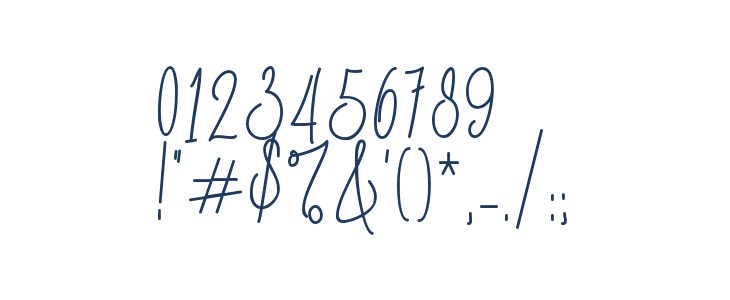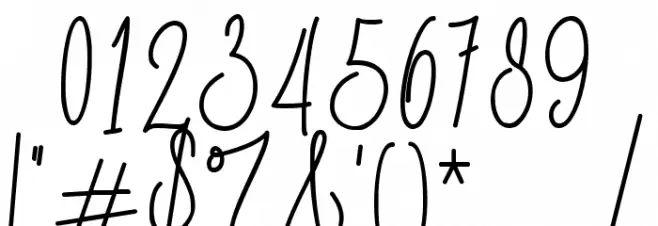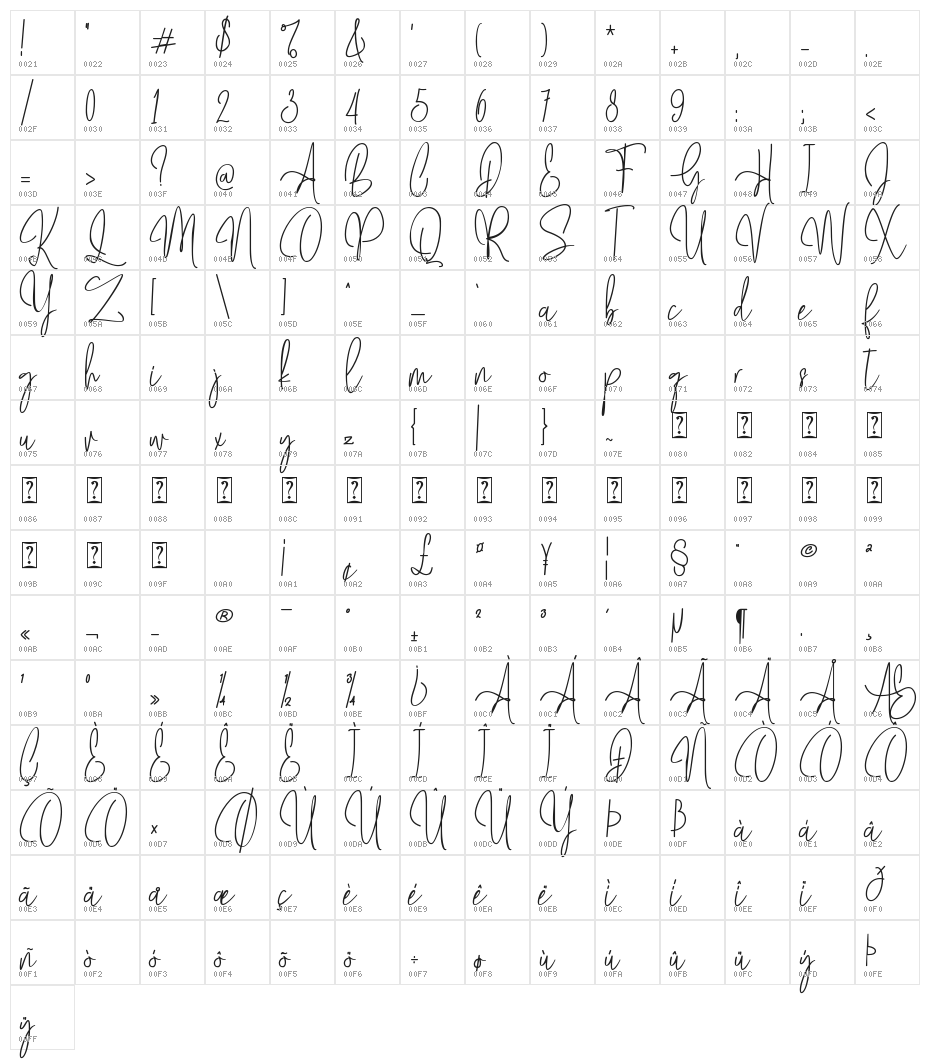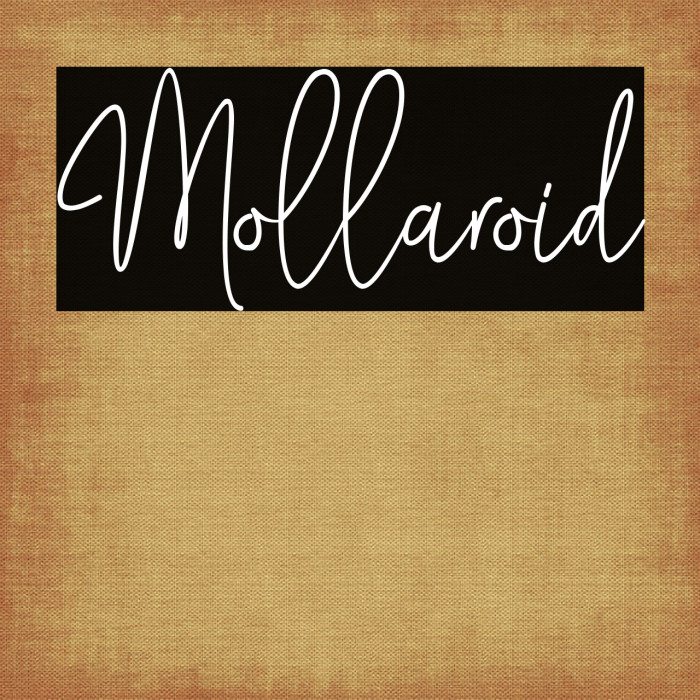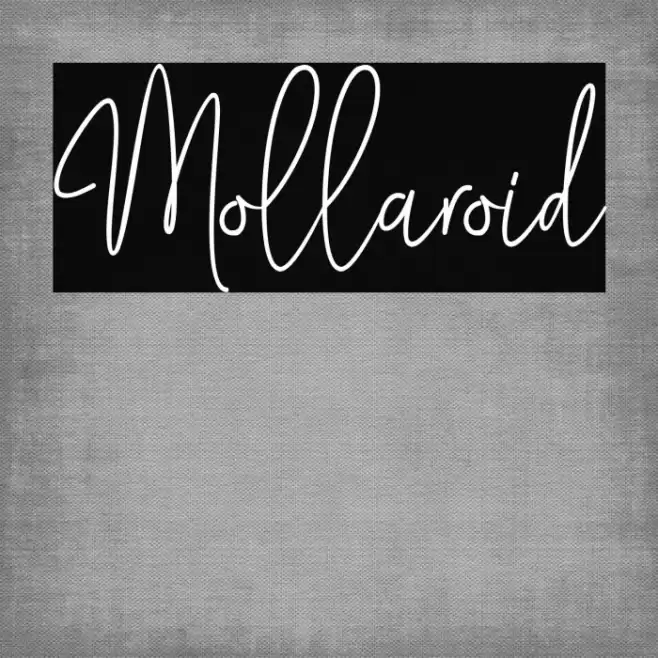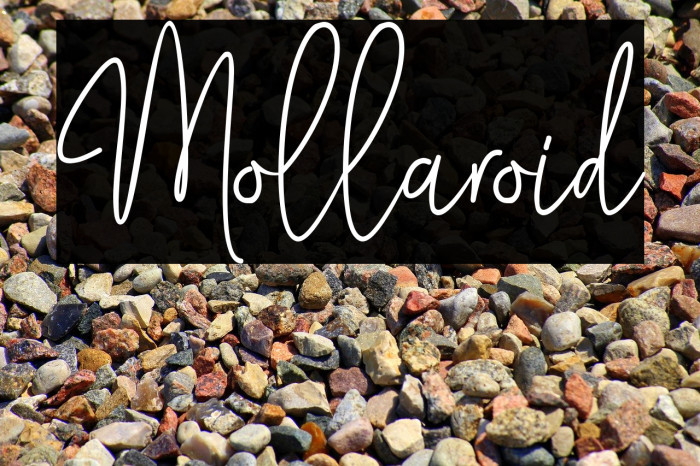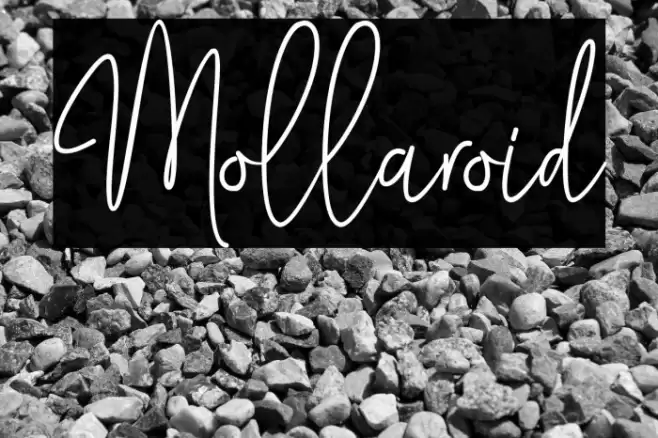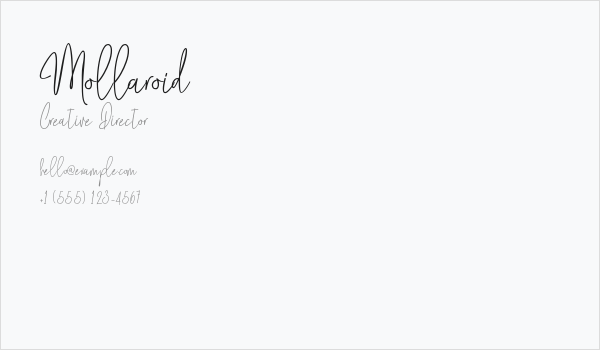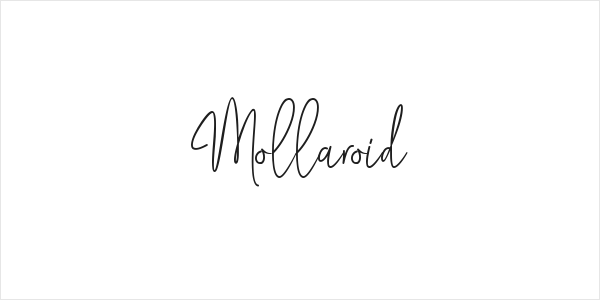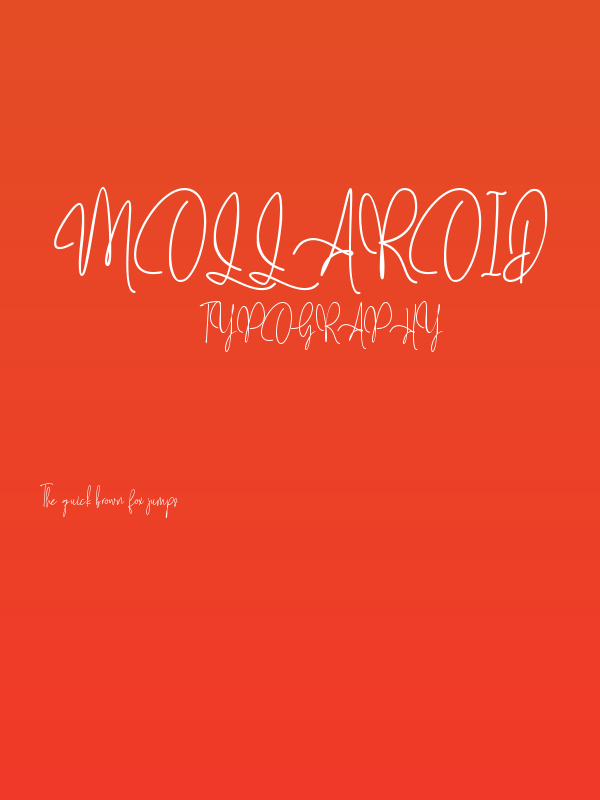
Mollaroid Font
Mollaroid Description
This font features a dynamic and fluid handwritten style, characterized by its elegant and flowing letterforms. The uppercase letters are tall and slender, with a slight slant that adds a sense of movement and grace. The lowercase letters maintain a consistent style, with smooth curves and loops that enhance the handwritten aesthetic. Numbers are clear and legible, maintaining the same fluidity as the letters. Special characters are thoughtfully designed to match the overall style, ensuring a cohesive look. The font's thin strokes and natural flow make it ideal for projects that require a personal touch.